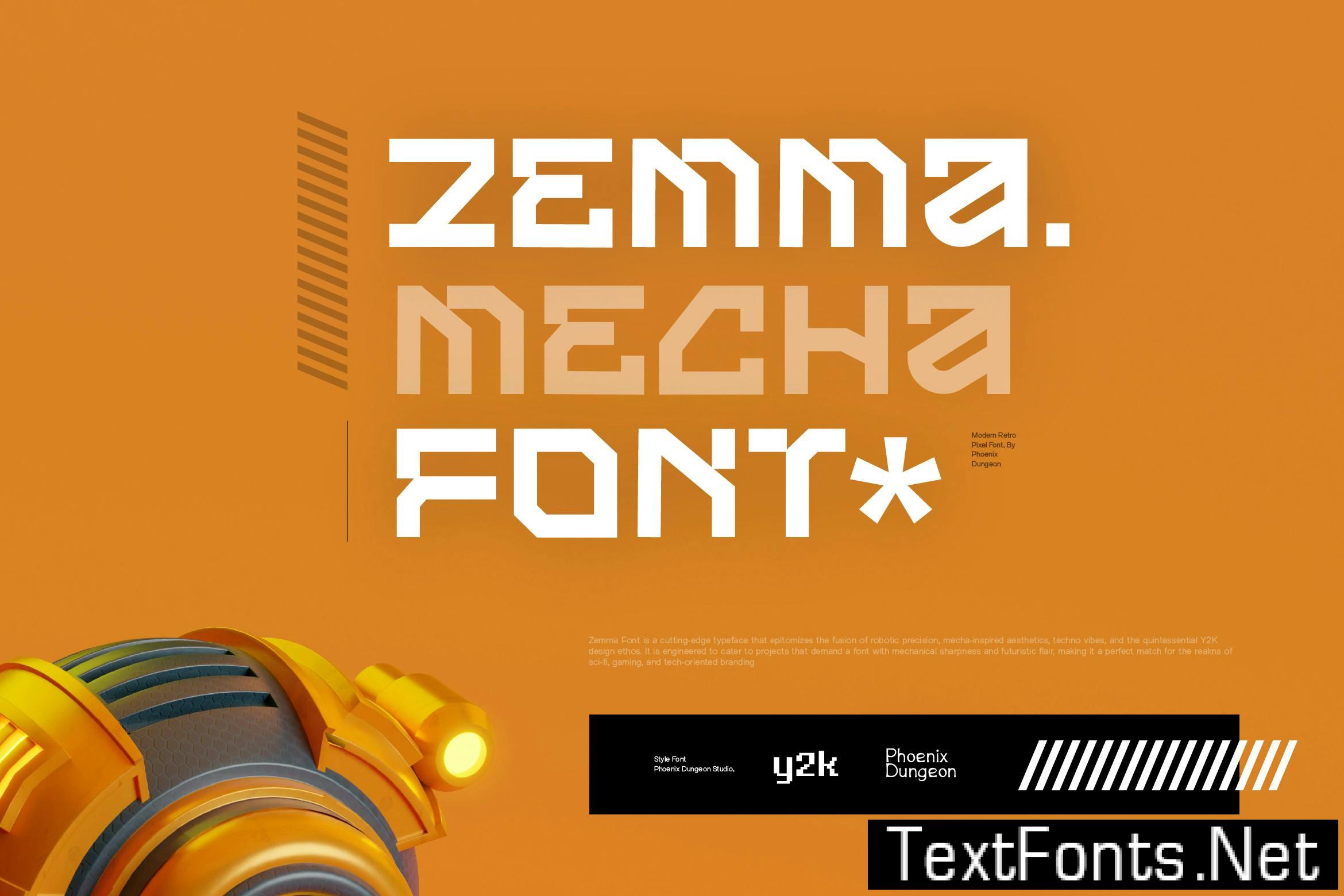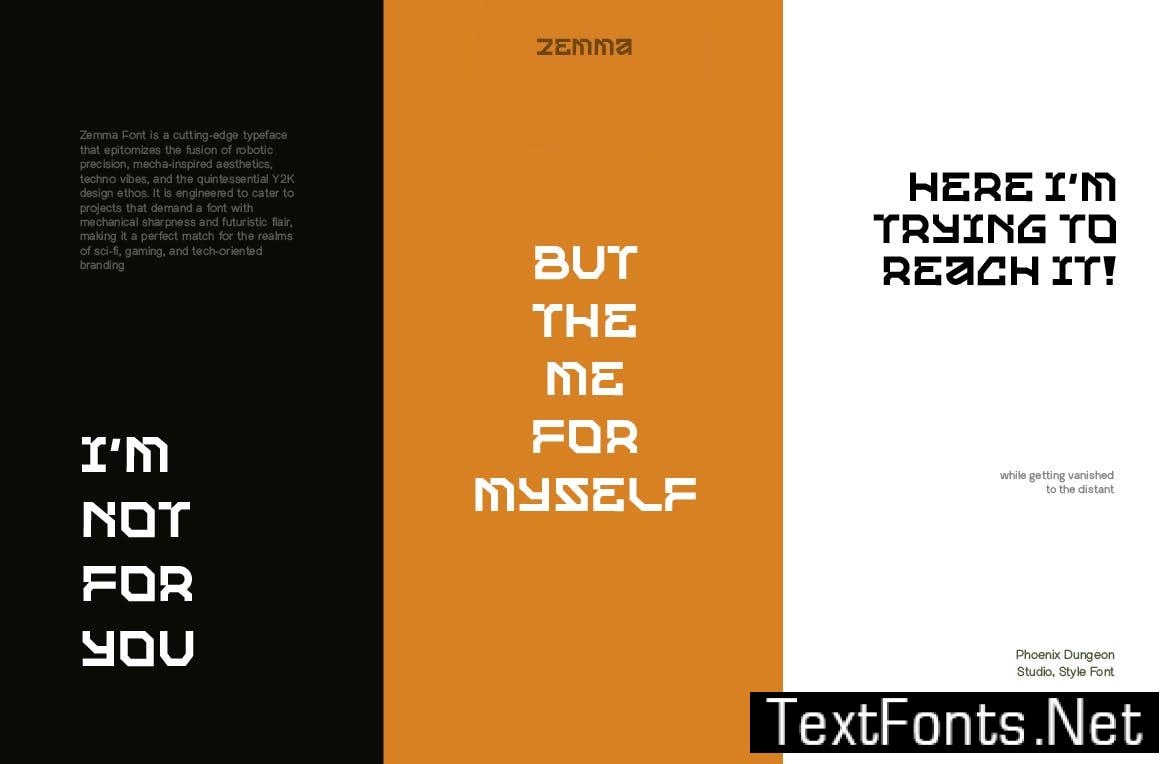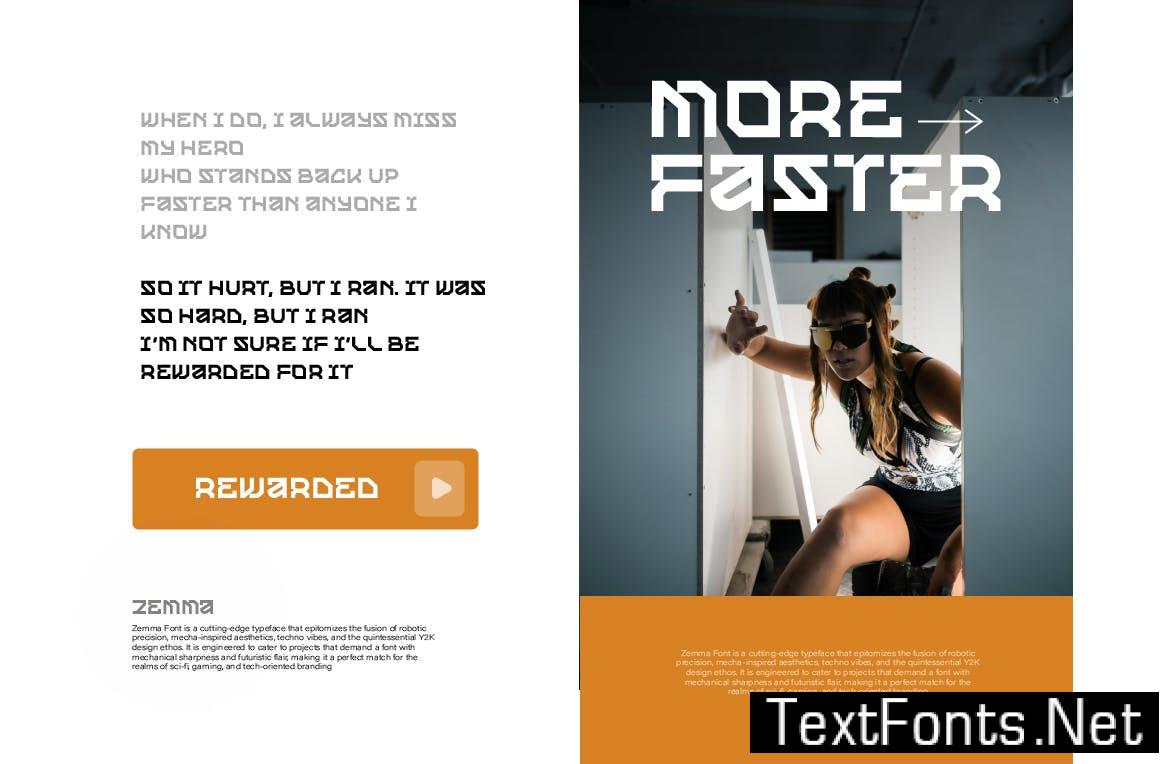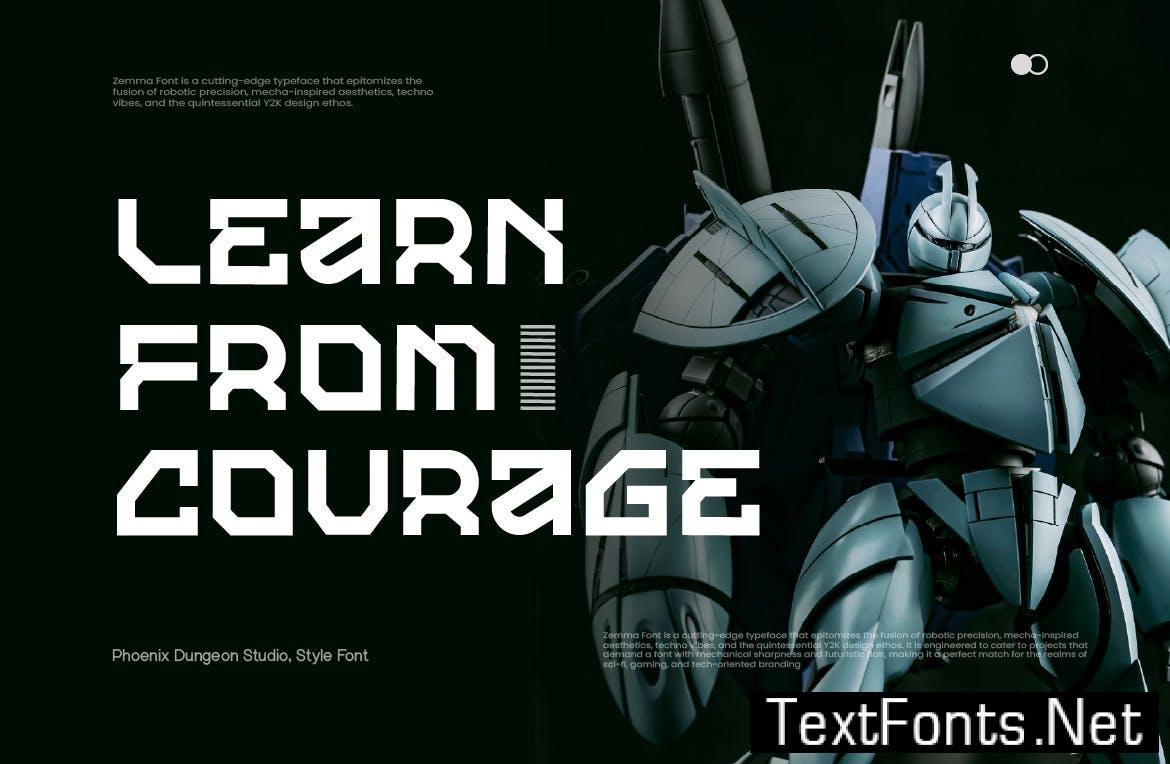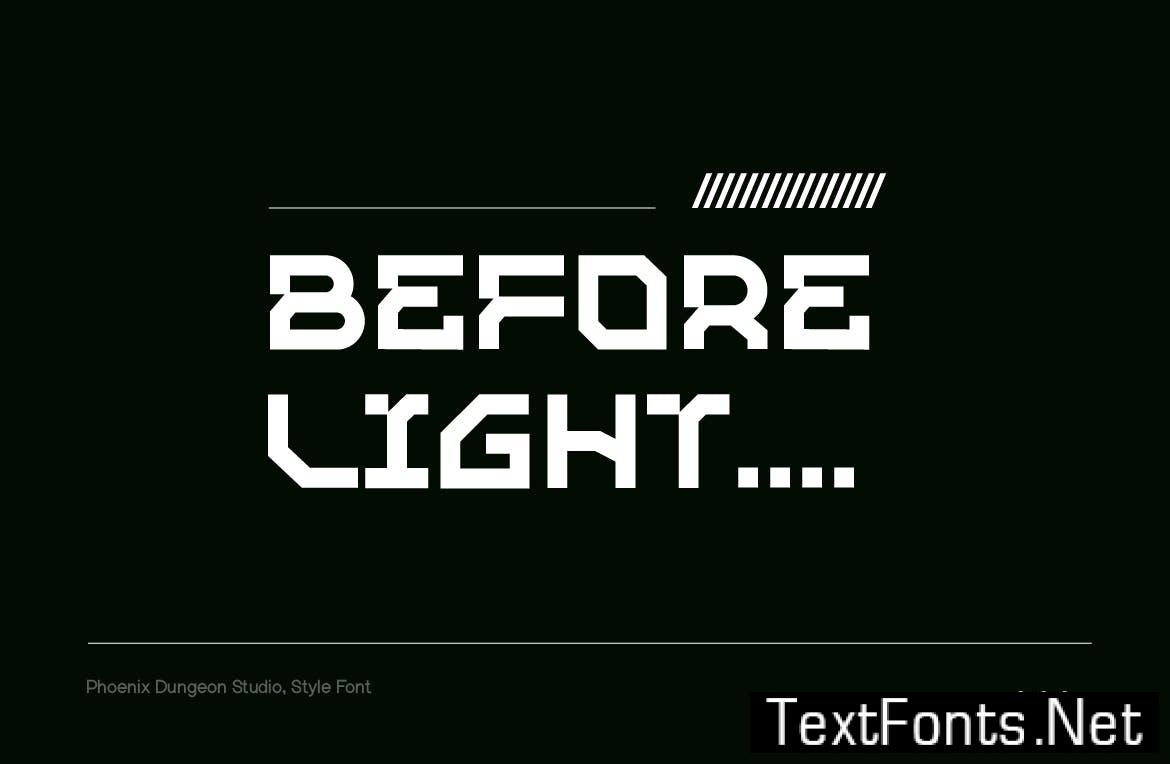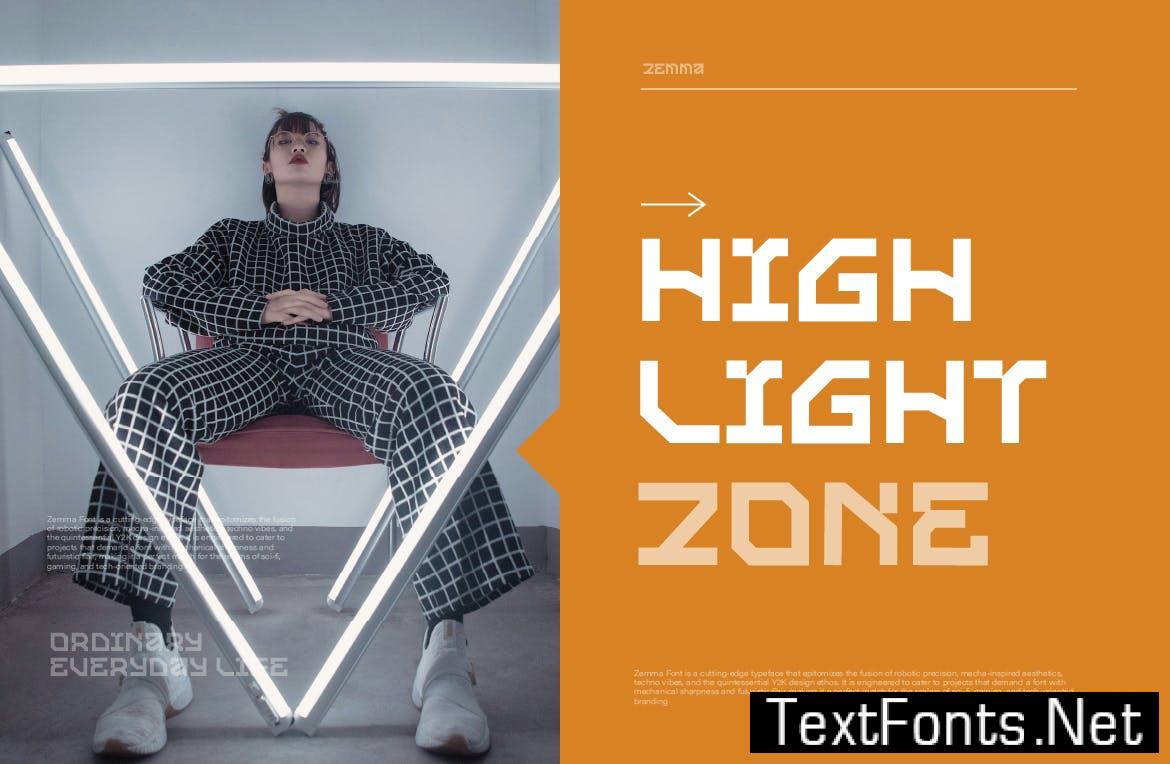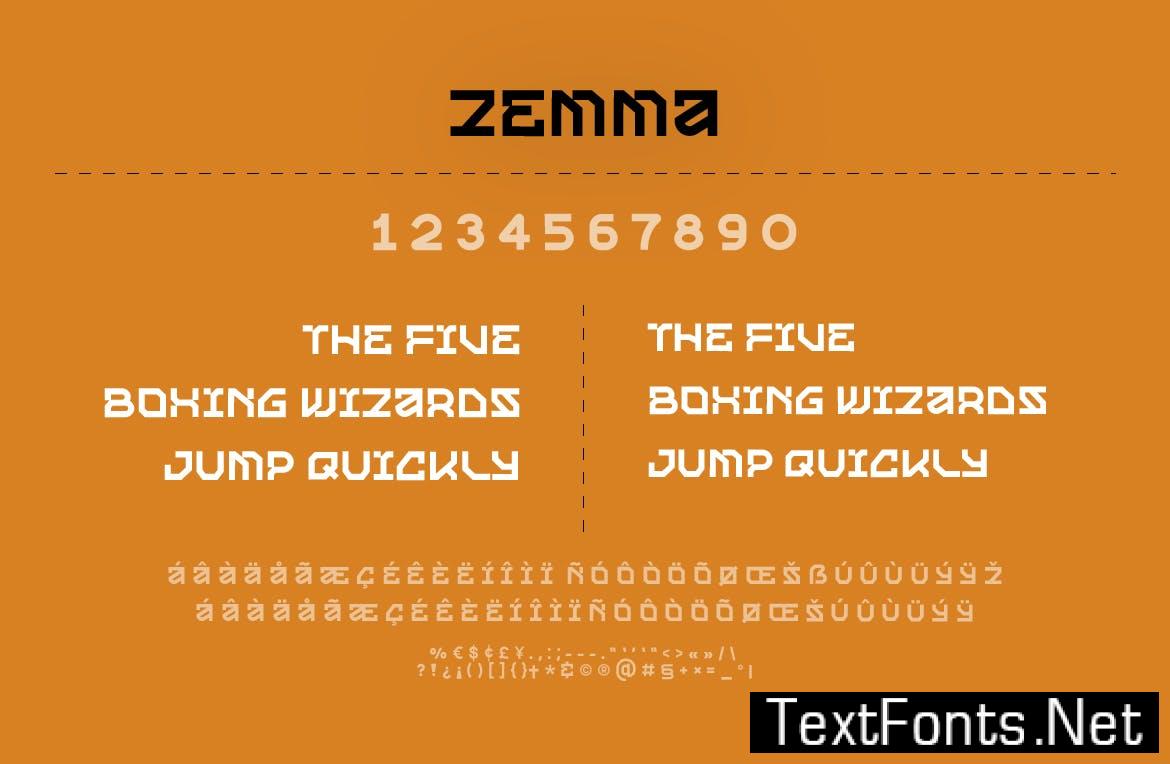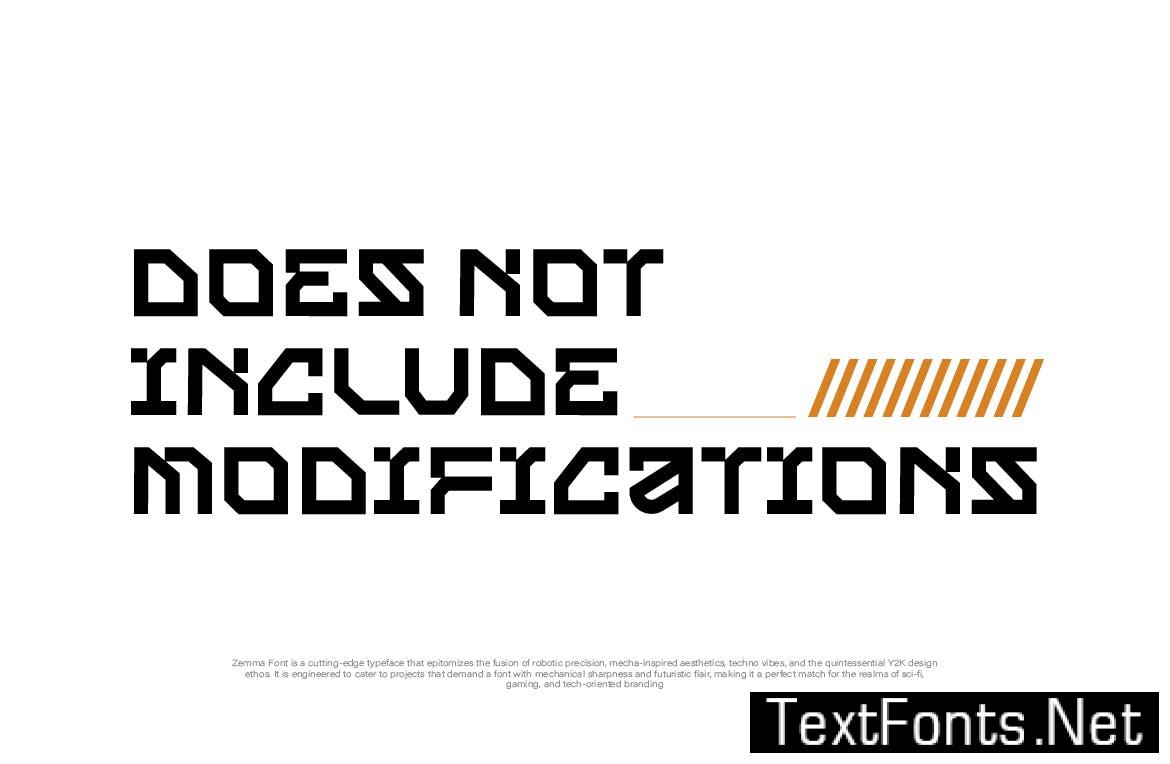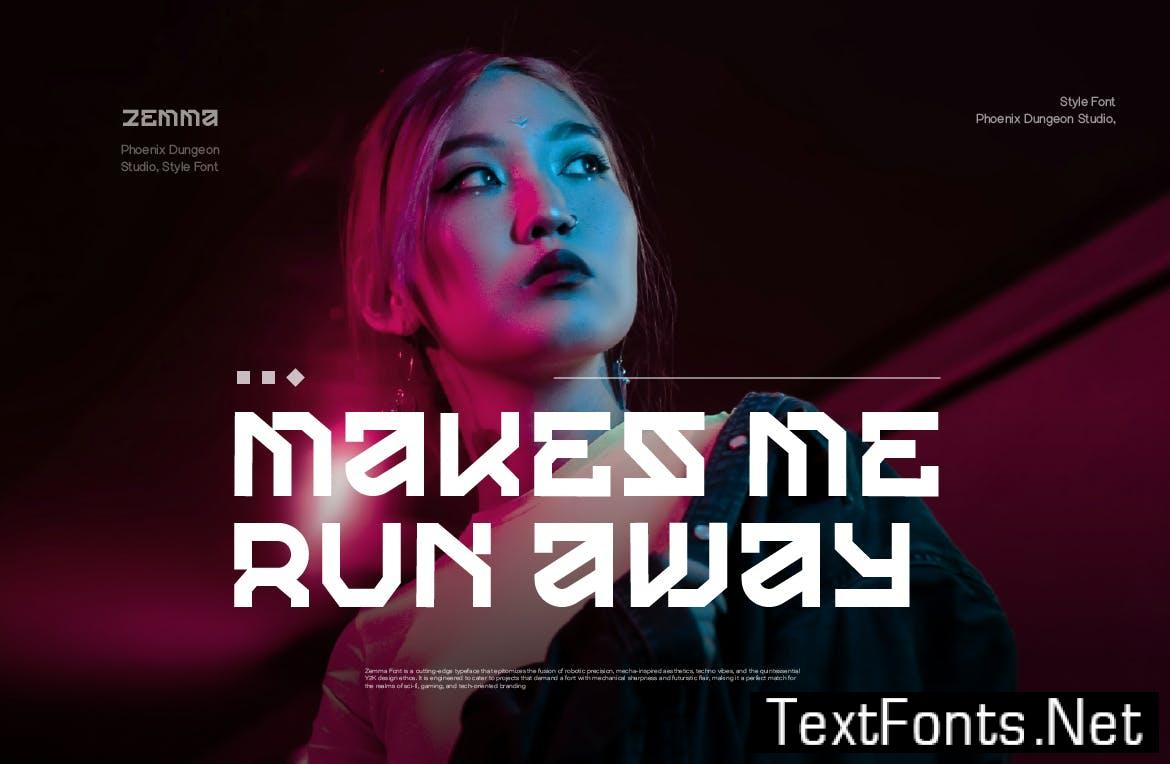
**Zemma** Font is a cutting-edge typeface that epitomizes the fusion of robotic precision, mecha-inspired aesthetics, techno vibes, and the quintessential Y2K design ethos. It is engineered to cater to projects that demand a font with mechanical sharpness and futuristic flair, making it a perfect match for the realms of sci-fi, gaming, and tech-oriented branding.